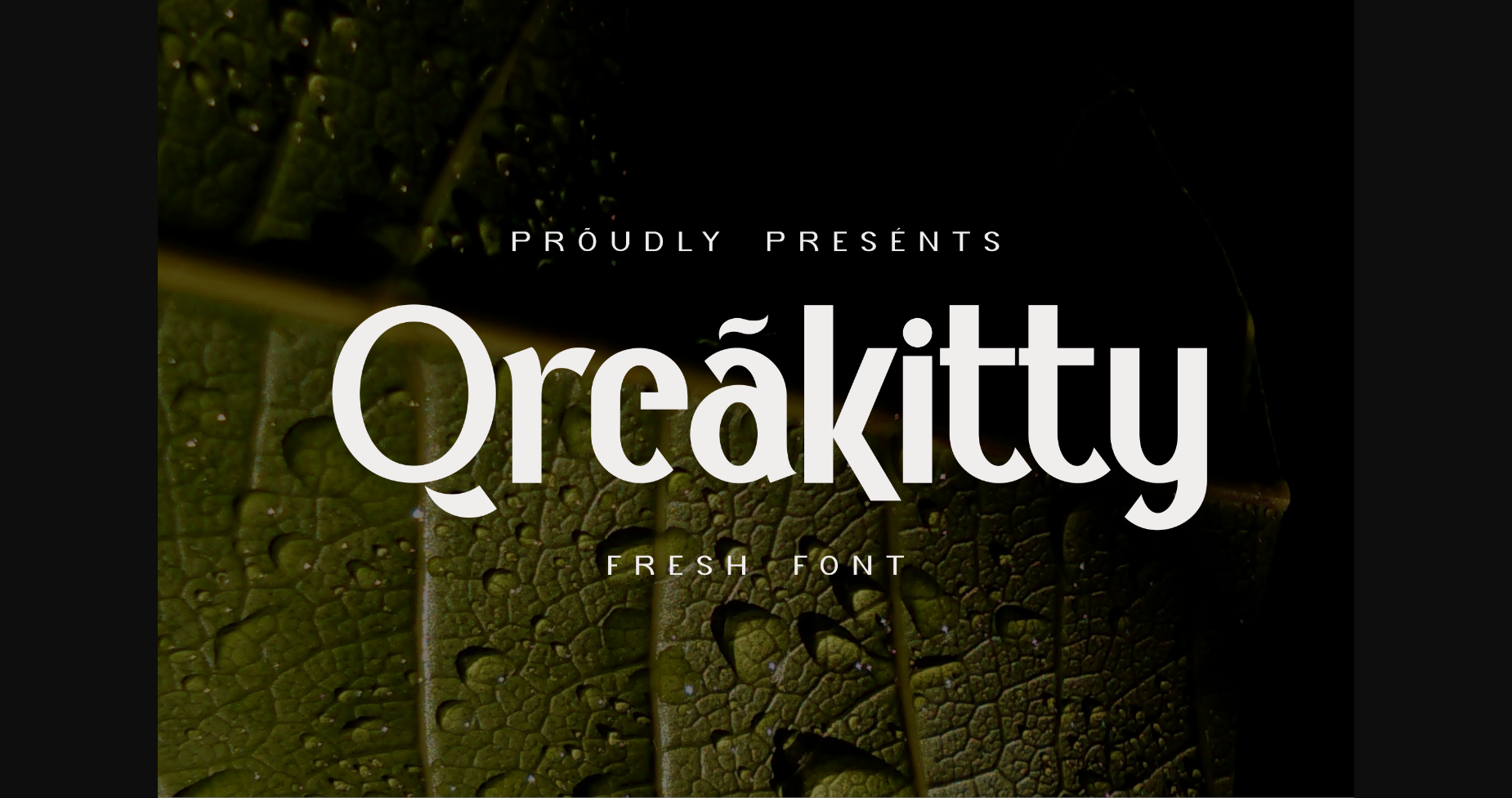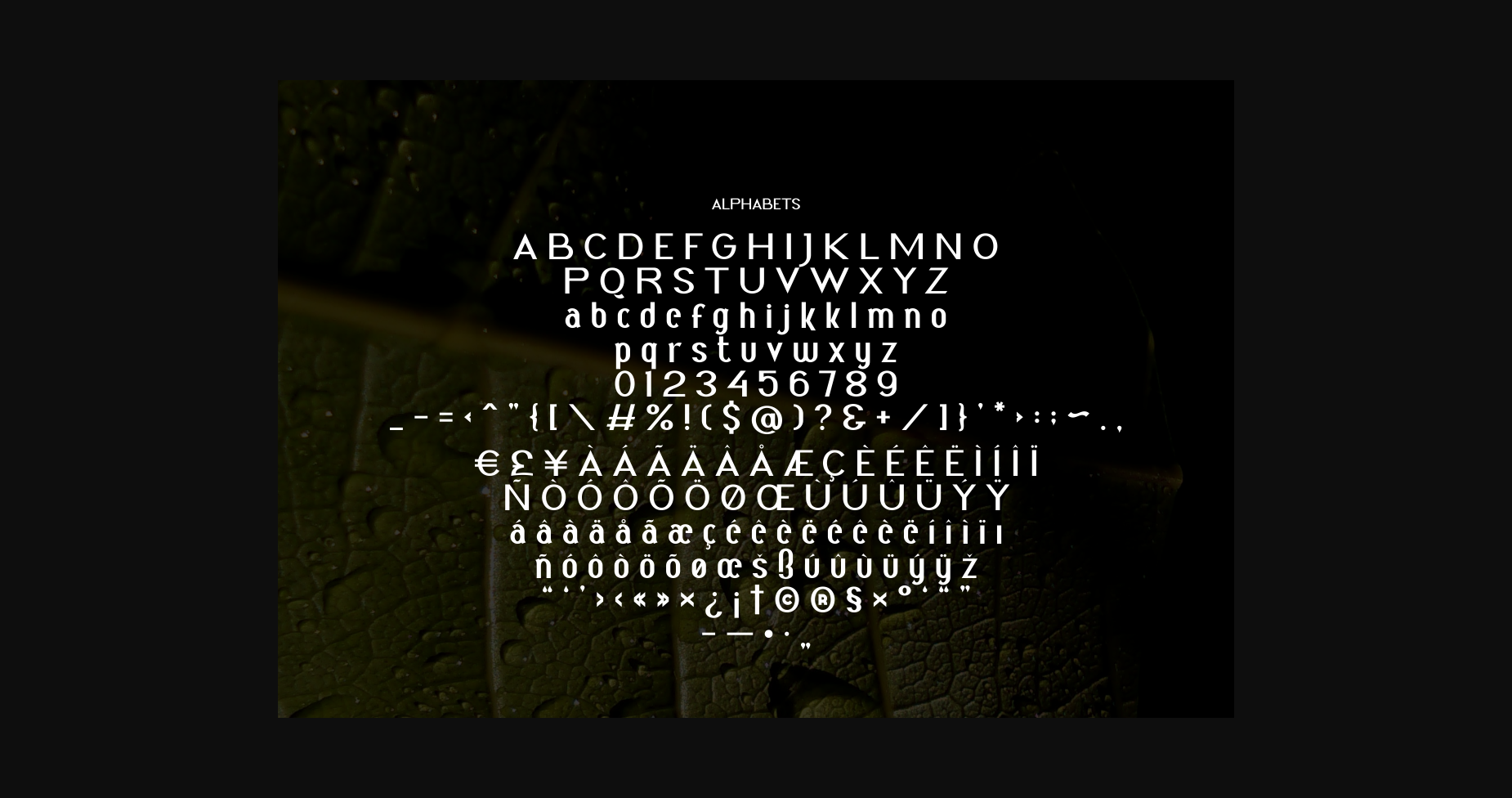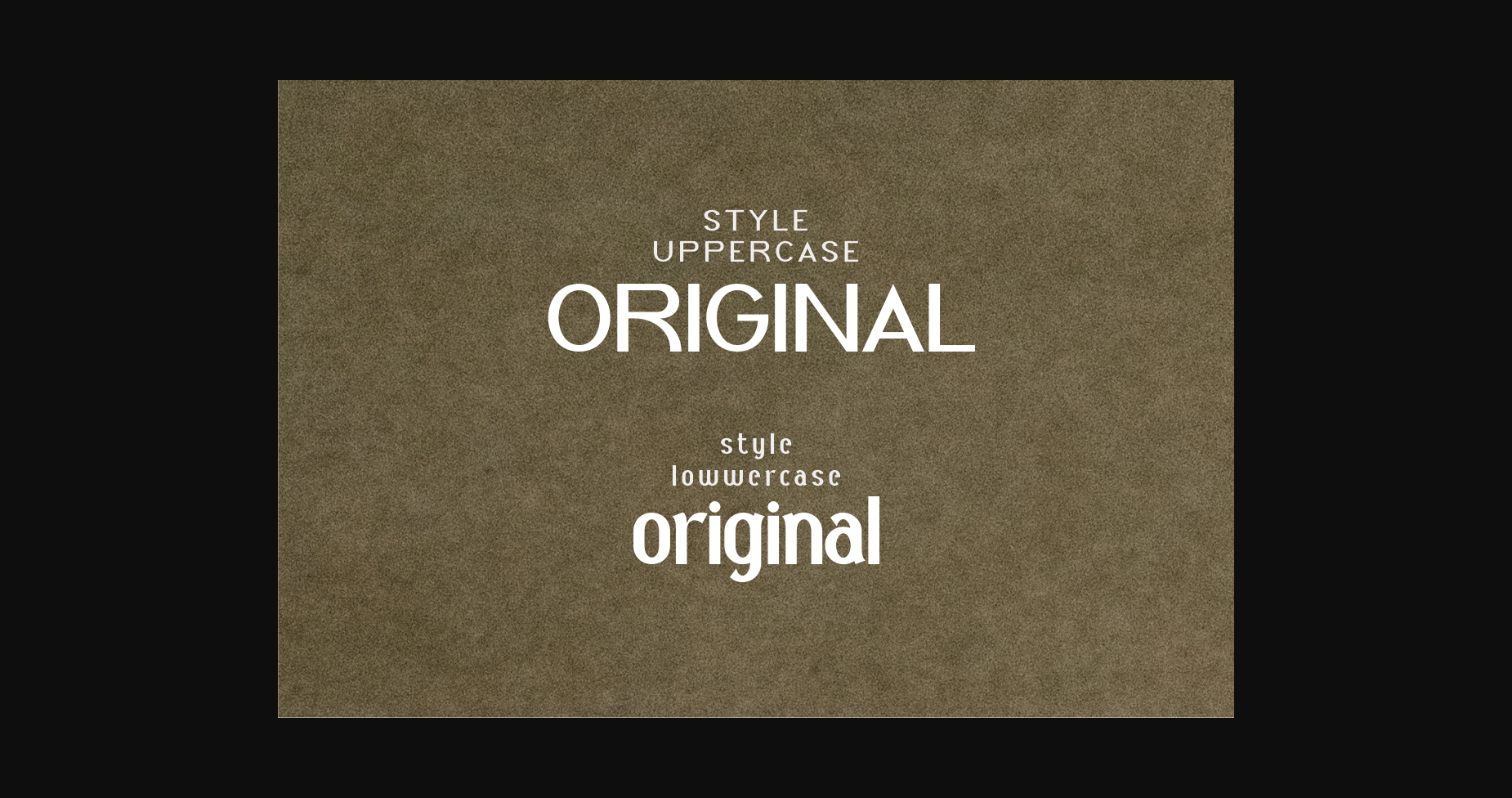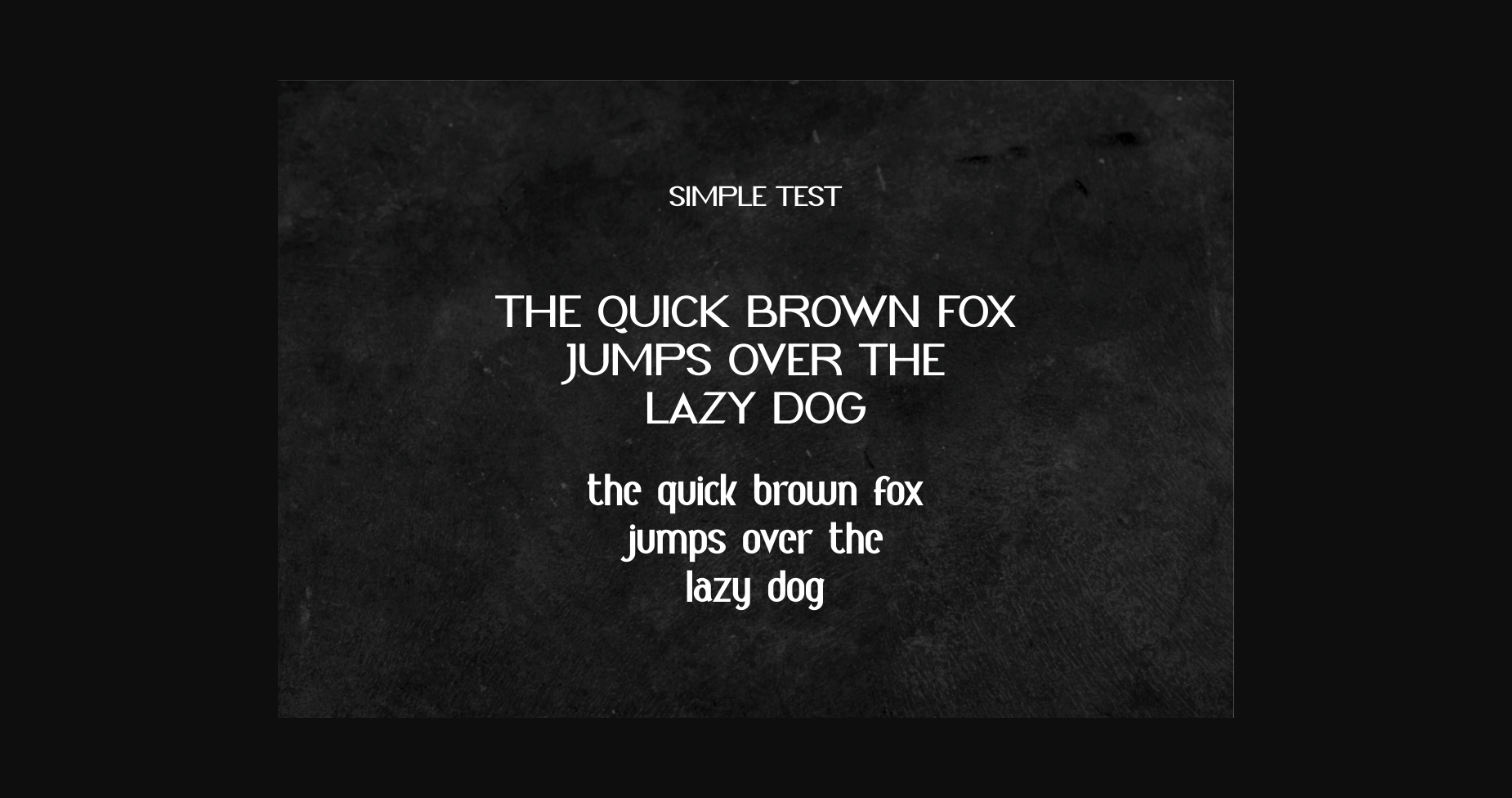
About Qreakitty Font
Qreakitty is a cool and modern sans serif font. Add it confidently to your projects and you will be amazed by the generated outcome!